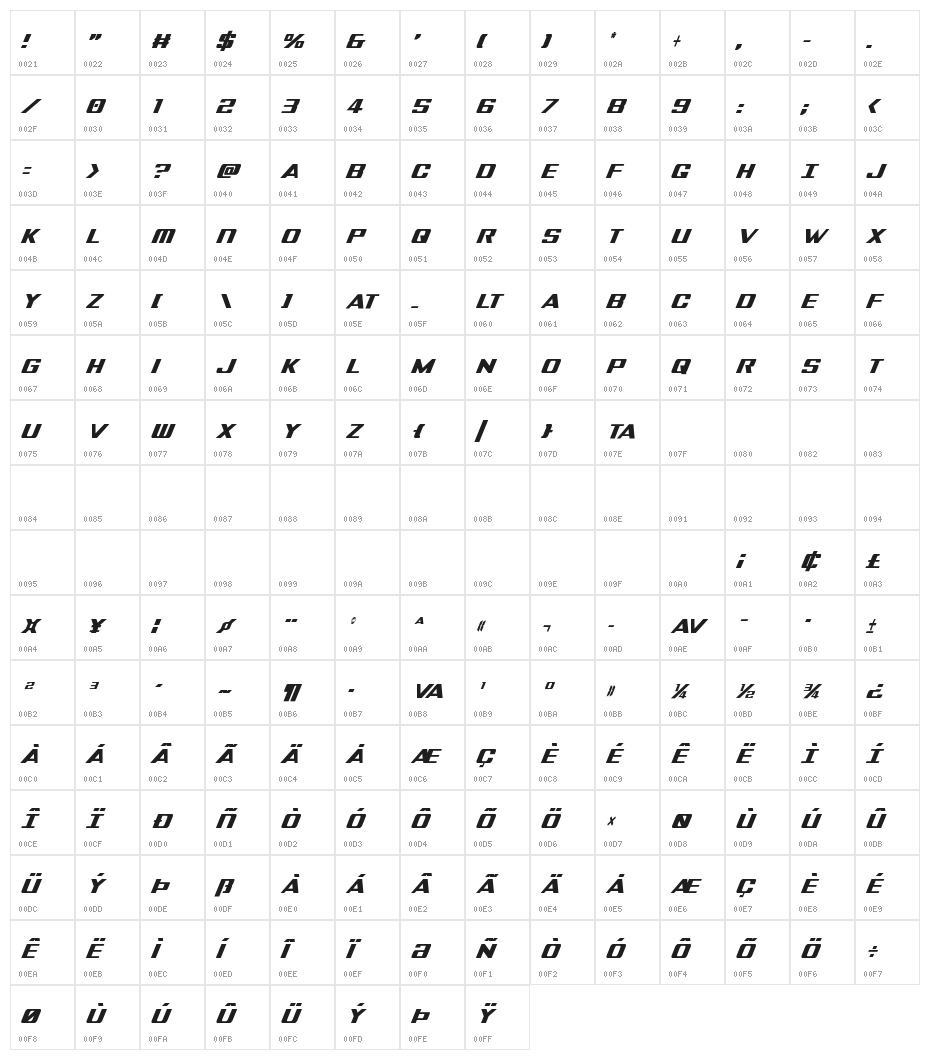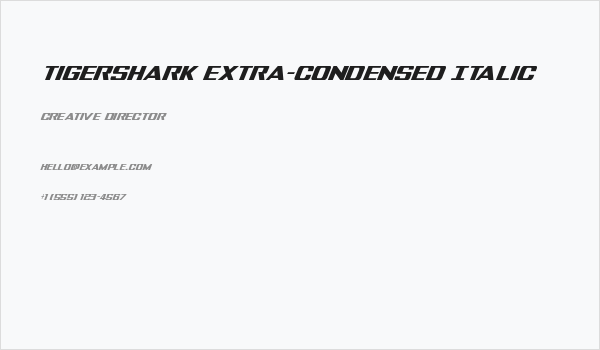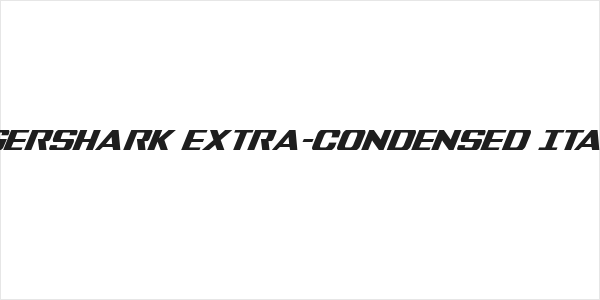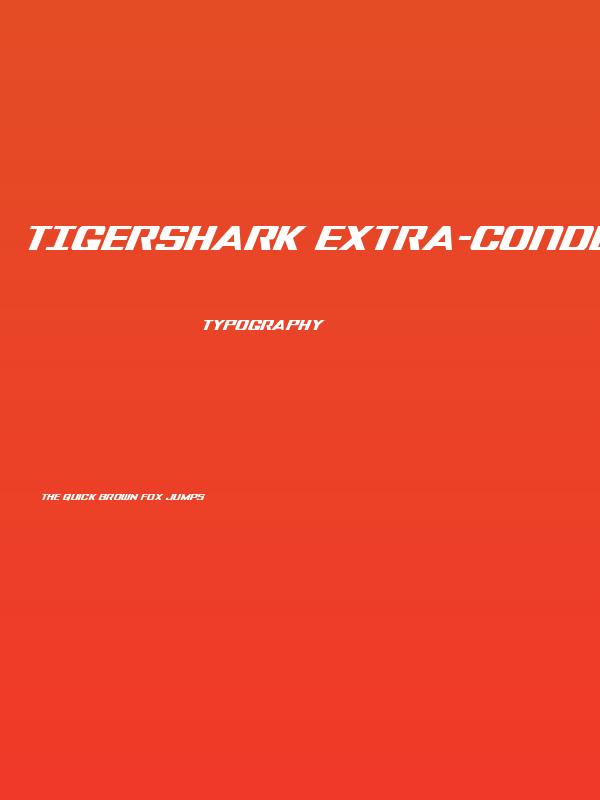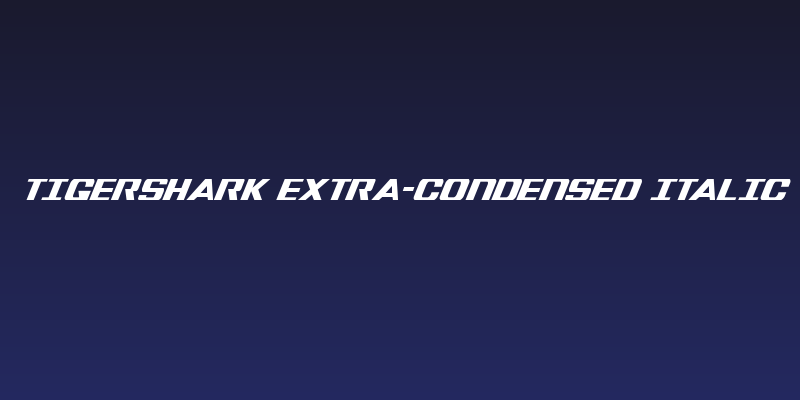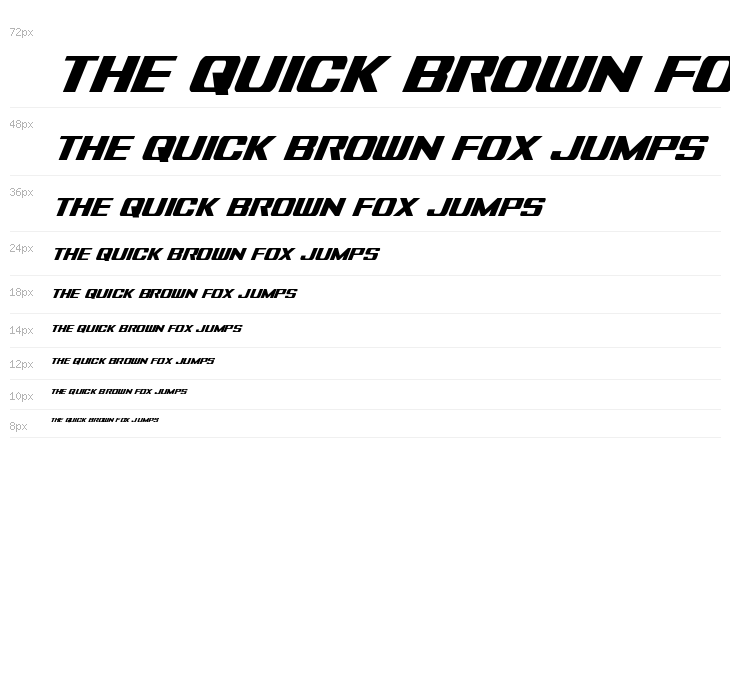
Tigershark Extra-Condensed Italic Font
Tigershark Extra-Condensed Italic Description
This font features a bold and dynamic style with a strong italic slant, giving it a sense of motion and energy. The characters are extra-condensed, which makes them appear sleek and modern. The sharp angles and clean lines contribute to a futuristic and aggressive aesthetic. The uppercase letters are particularly striking, with a uniform height and consistent stroke weight that enhances readability. The numerals and special characters maintain the same bold and italicized characteristics, ensuring a cohesive look across all text elements.
| Proposed Projects | Ideal for sports branding, automotive advertisements, video game titles, and dynamic poster designs. |